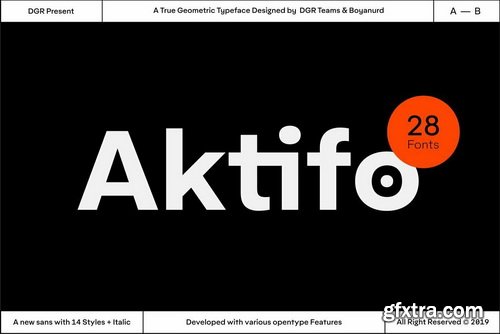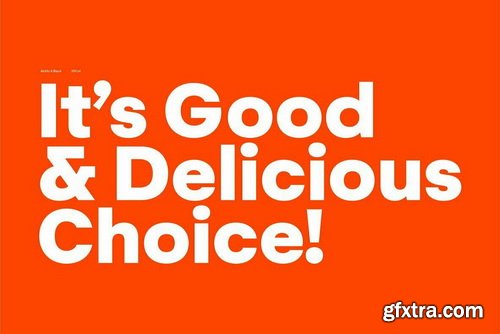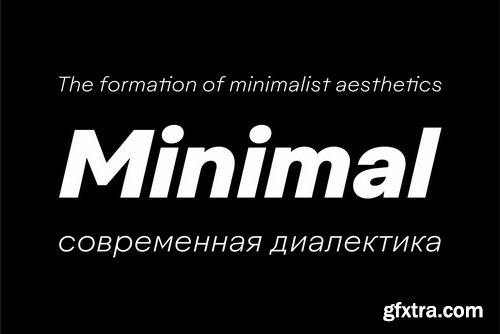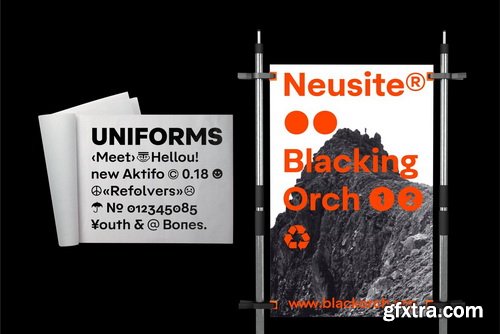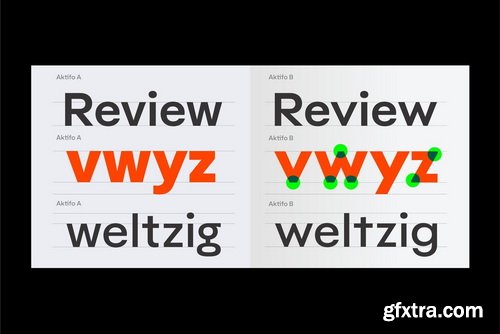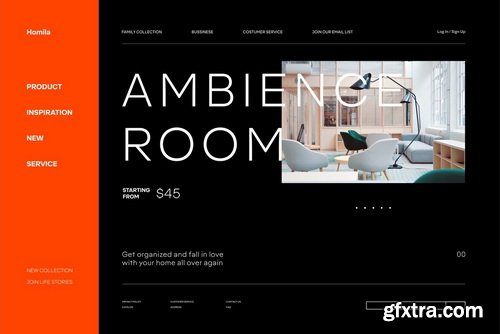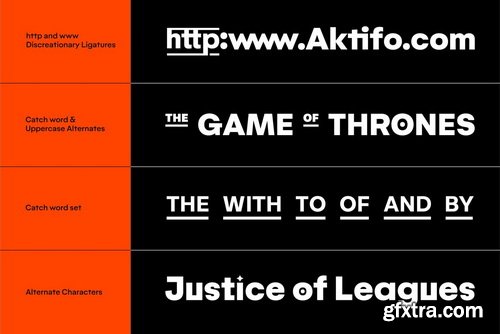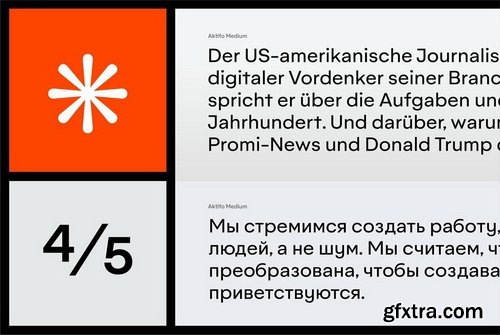
阿克提佛字体家族
Aktifo is designed with a modern and contemporary style, based on elementary geometric shapes and constructed of monolinear lines. It was design to be functional, leaving behind anything that can be regarded as superfluous.